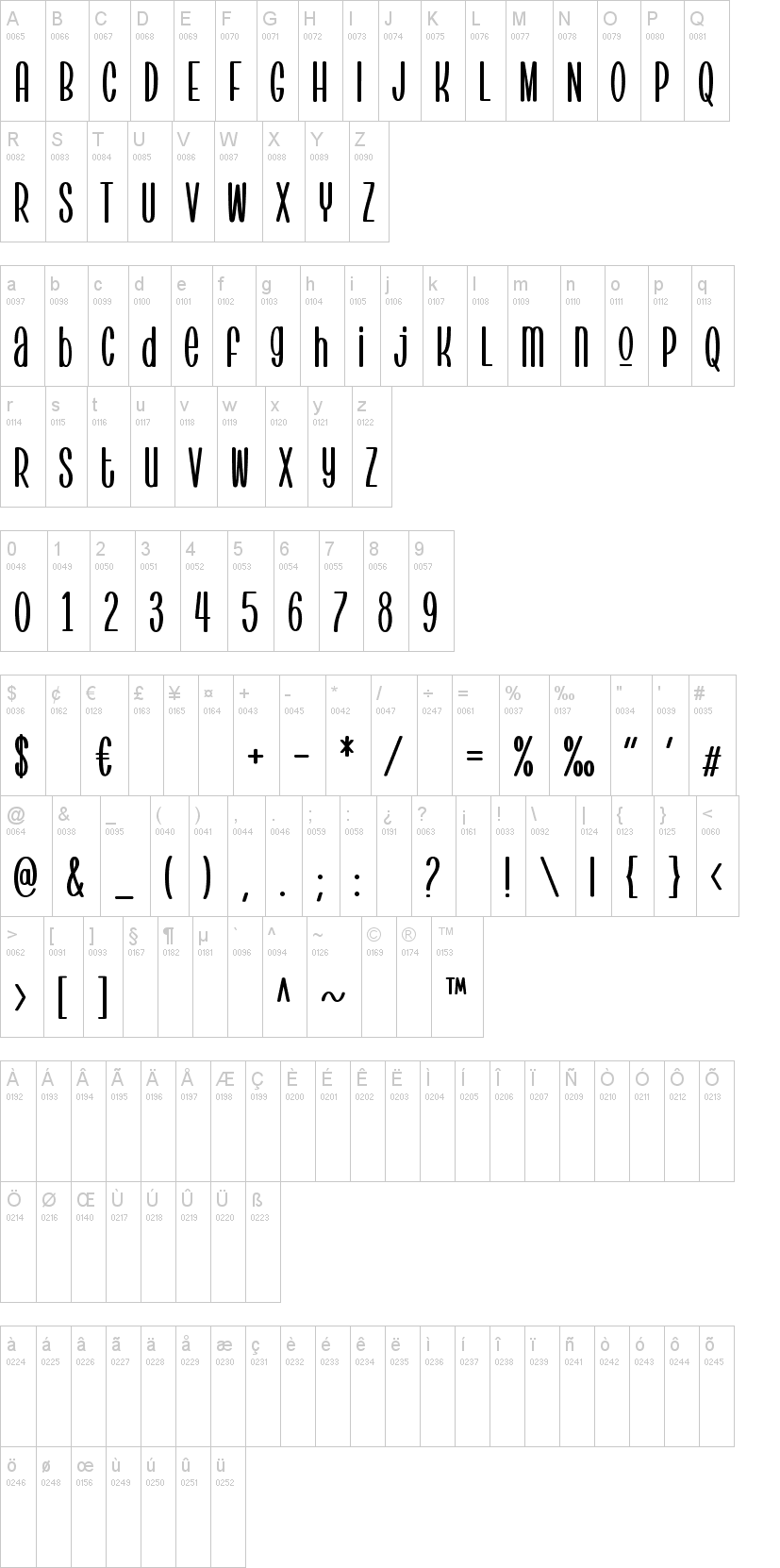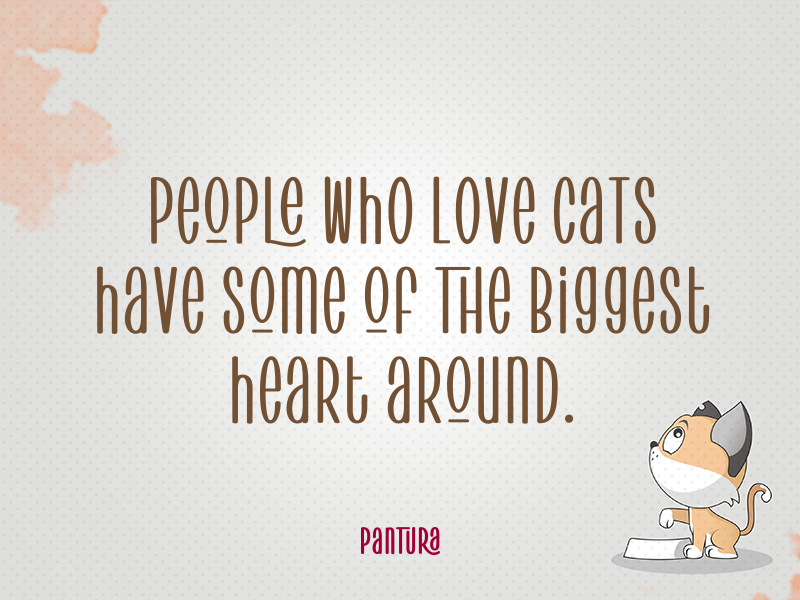
Note of the authorPantura is a simple yet playful handmade font. Based on casual handwriting, it makes your typographic design very personal. Several ligatures are added to make your design unique and attractive.